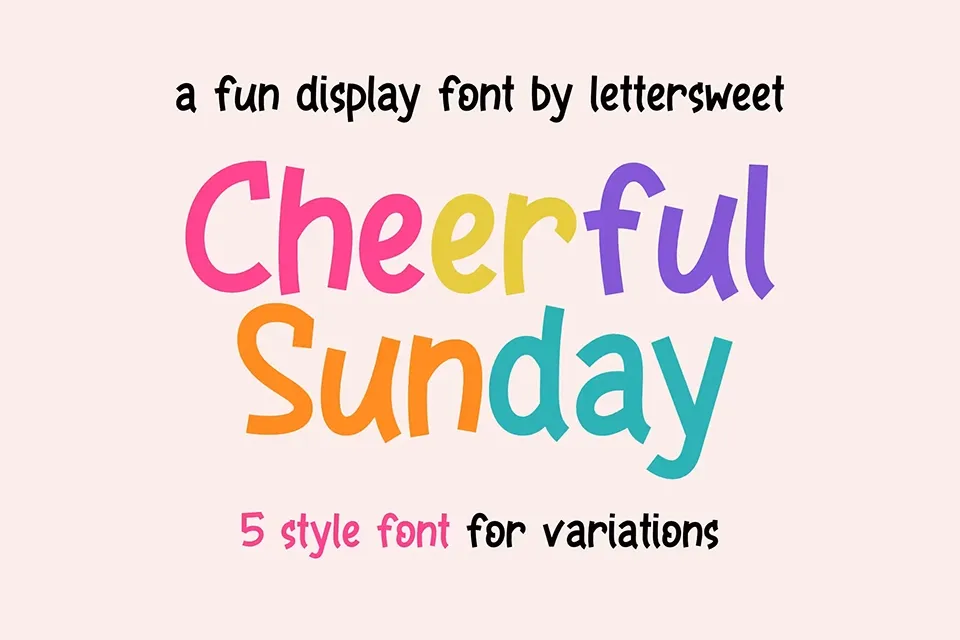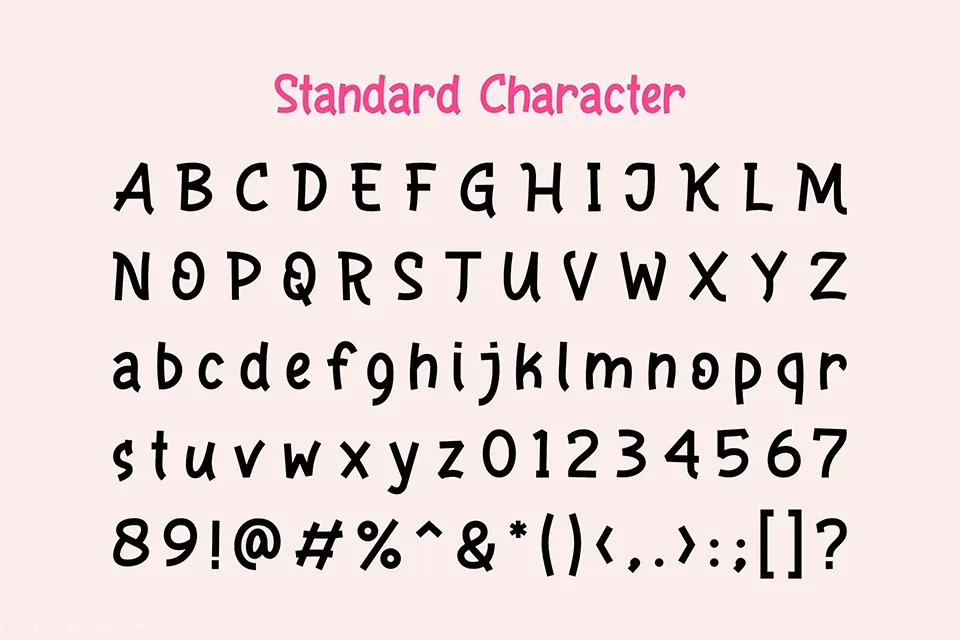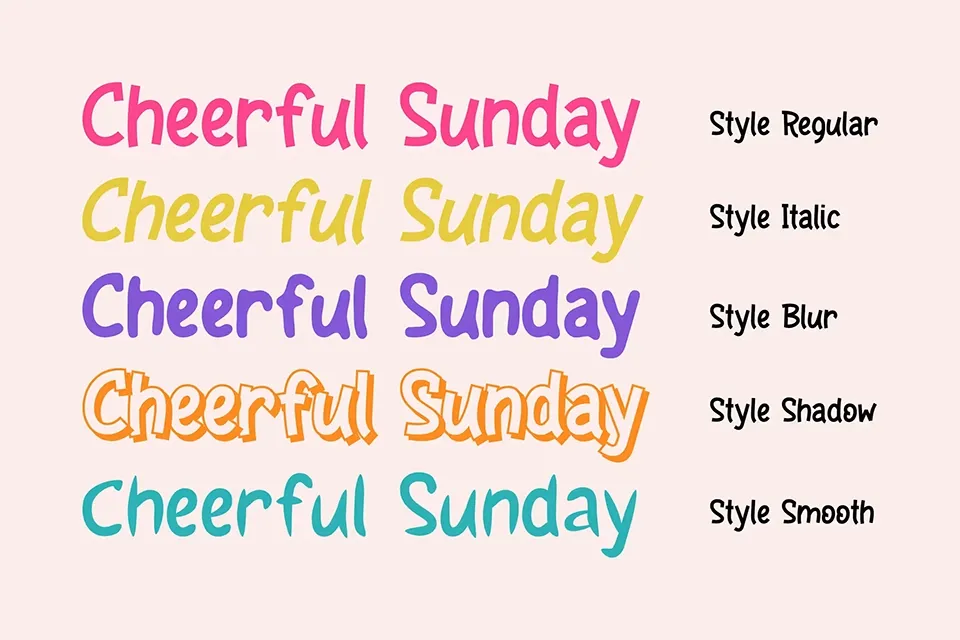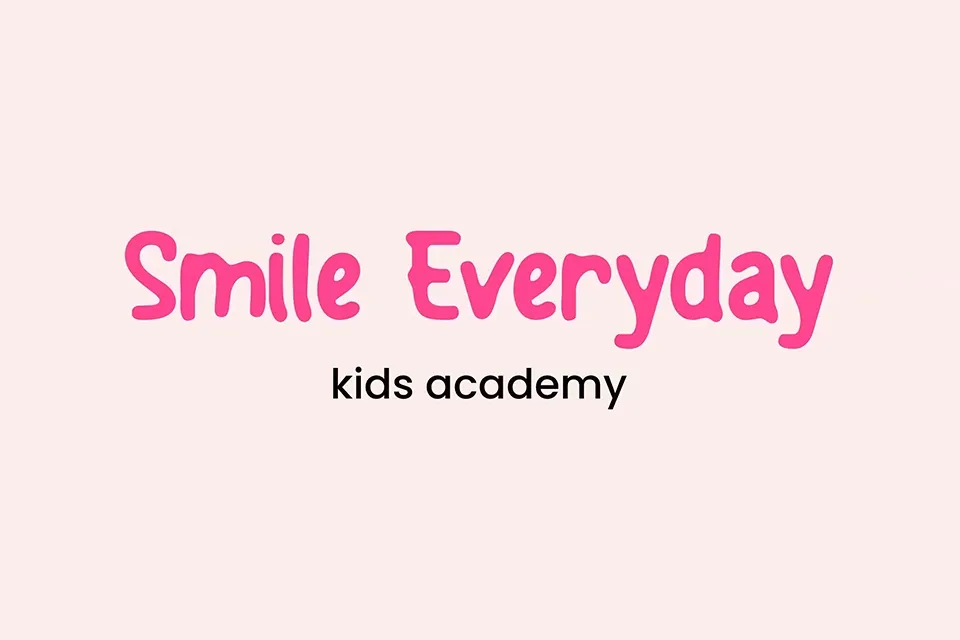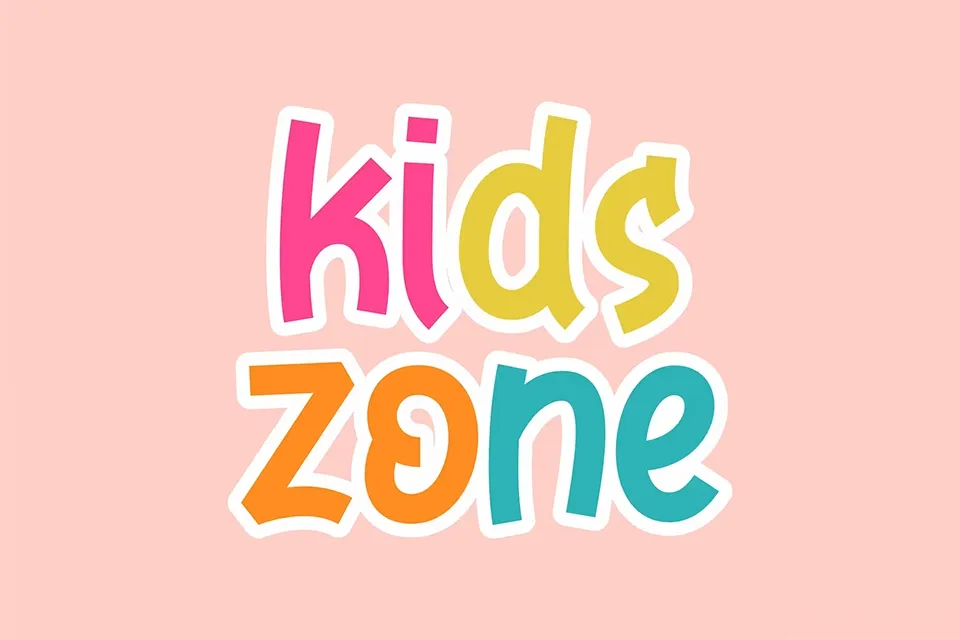
Cheerful Sunday Font
Cheerful Sunday Font is a fun and versatile display font that adds a touch of whimsy to any design project. Featuring five playful styles, this casual, handwritten typeface is perfect for eye-catching headlines, children’s book covers, branding, and marketing materials. Its friendly and approachable vibe makes it ideal for creative work that needs a cheerful, inviting look.